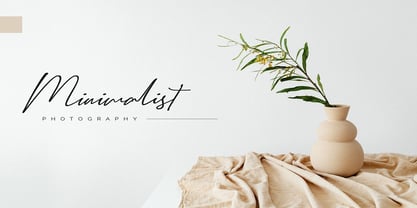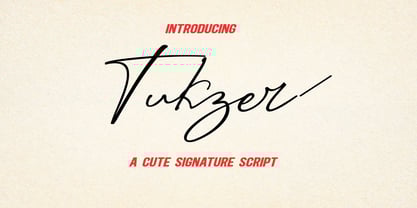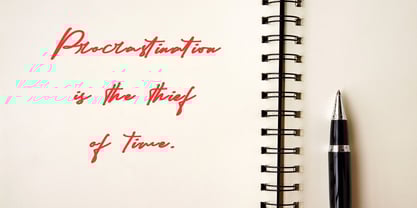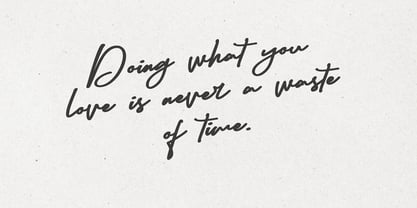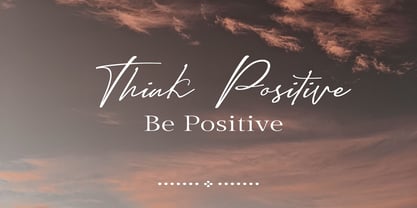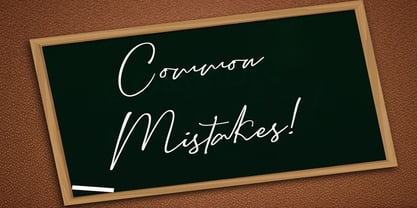
Tukzer
by Dream Font
The Tukzer Font Family was designed by Jean Evans and published by Dream Font. Tukzer contains 1 styles. More about this family
Tukzer Font is a handwritten pencil script font that brings the warmth and authenticity of hand-drawn lettering to your digital and print projects. This font captures the subtle nuances of a real pencil sketch. Perfect for creating a genuine, personal touch in branding, invitations, social media graphics, and more.
Tukzer Font is packed with everything you need, including uppercase and lowercase letters, numbers, and punctuation. Multilingual support.
Designers: Jean Evans
Foundry: Dream Font